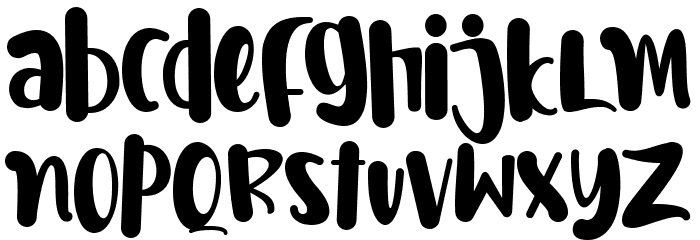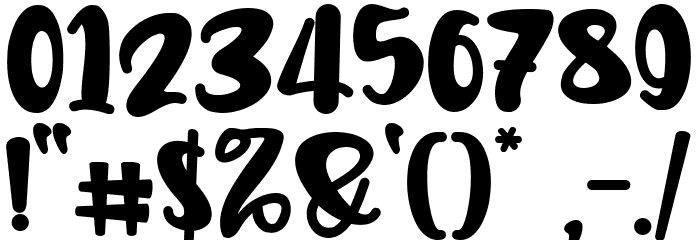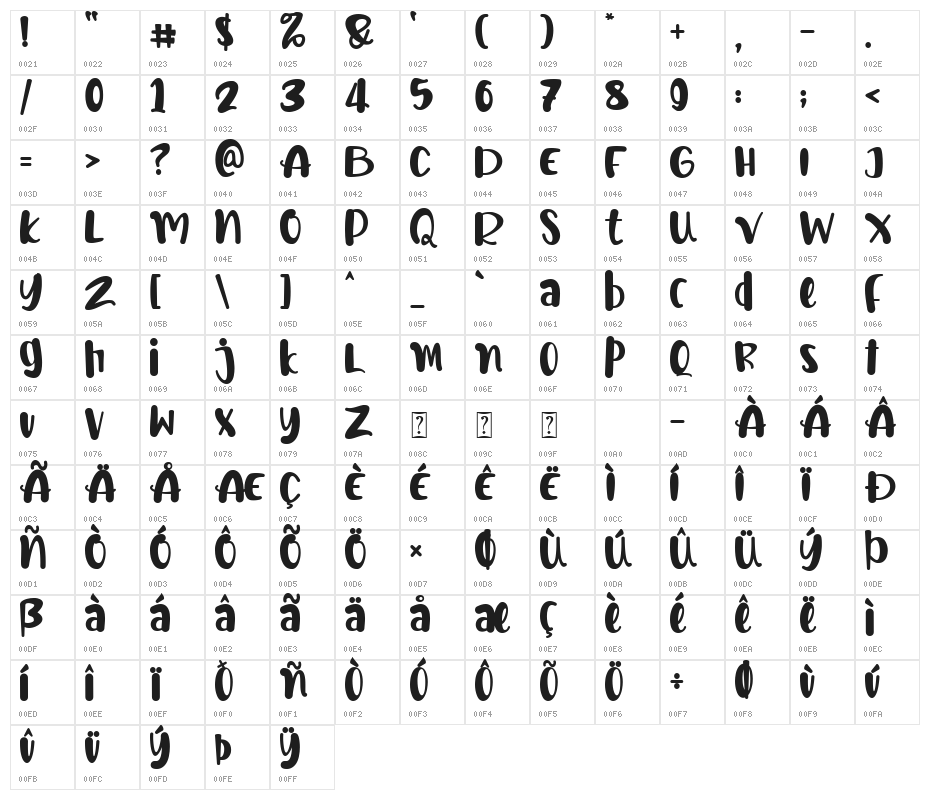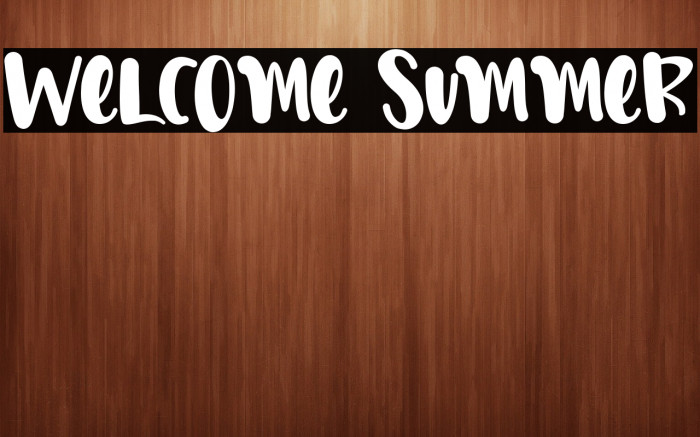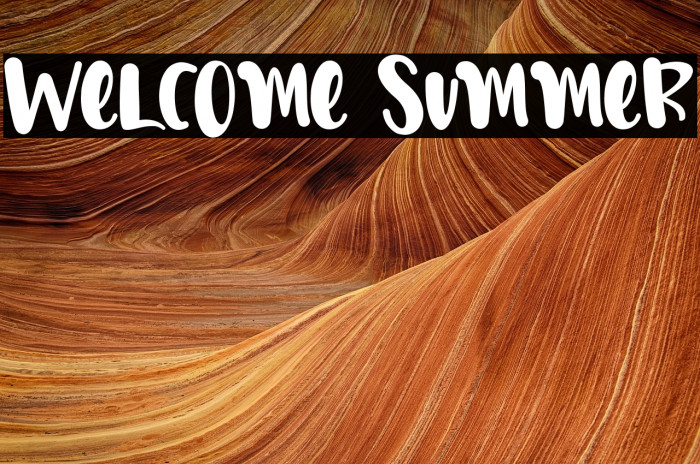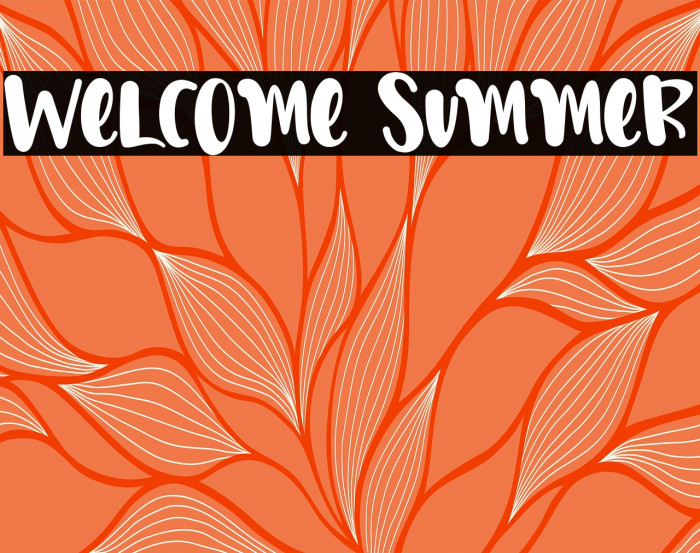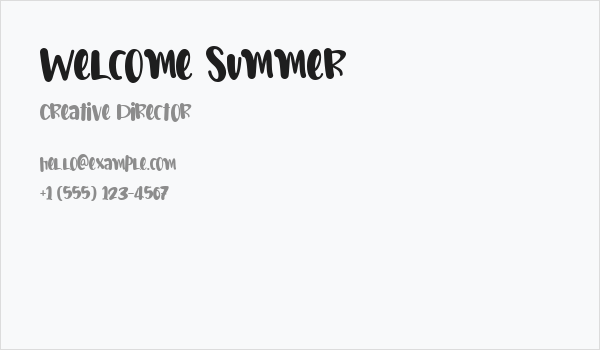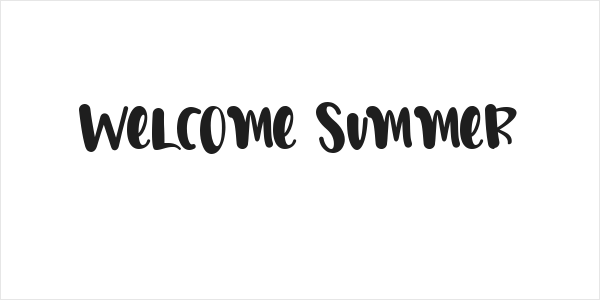
Welcome Summer Font
This playful and bold font features a handwritten style with a lively and energetic appearance. The characters are rounded and thick, conveying a sense of fun and creativity. The uppercase and lowercase letters maintain a consistent flow, while the numbers and special characters complement the overall design. Its whimsical nature makes it perfect for projects that require a touch of personality and flair. The font's boldness ensures readability, while its unique style adds a distinctive charm.
A playful, bold handwritten font with a lively and energetic style.
- Proposed Projects: Ideal for greeting cards, children's books, playful branding, and social media graphics.
- Overall Style: Playful